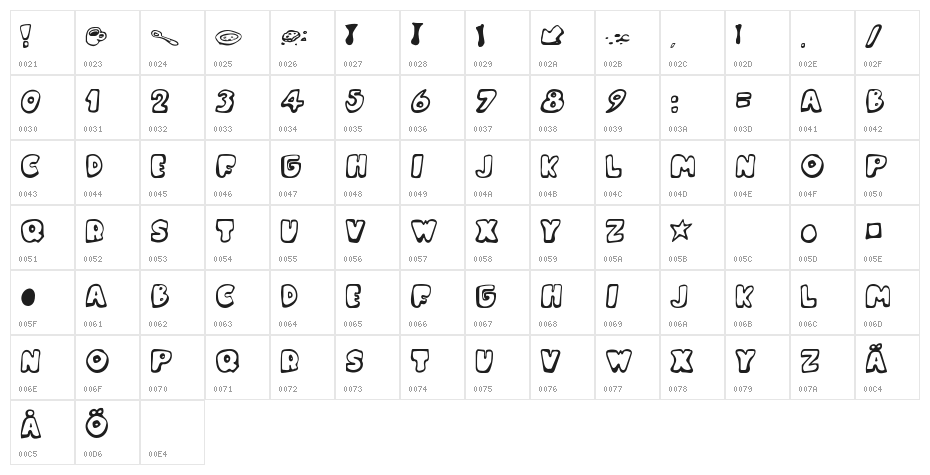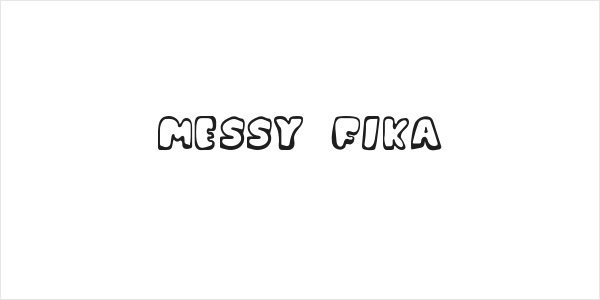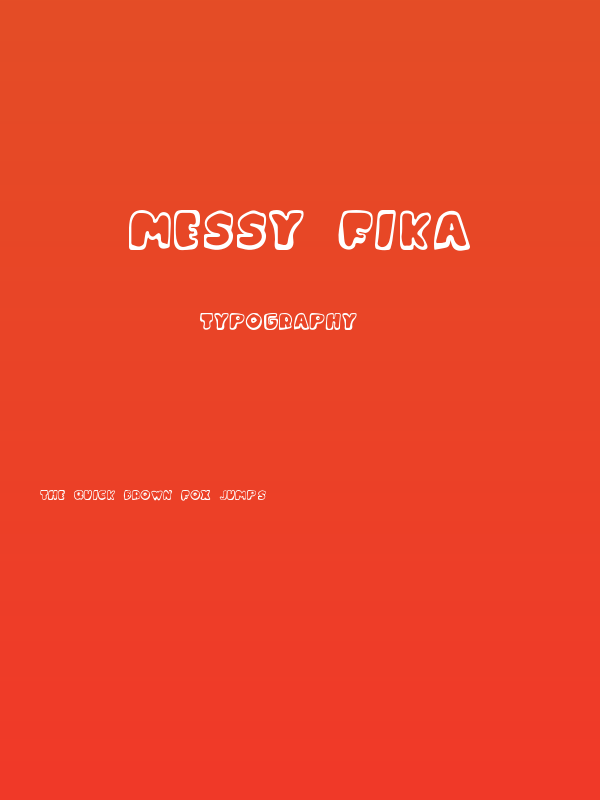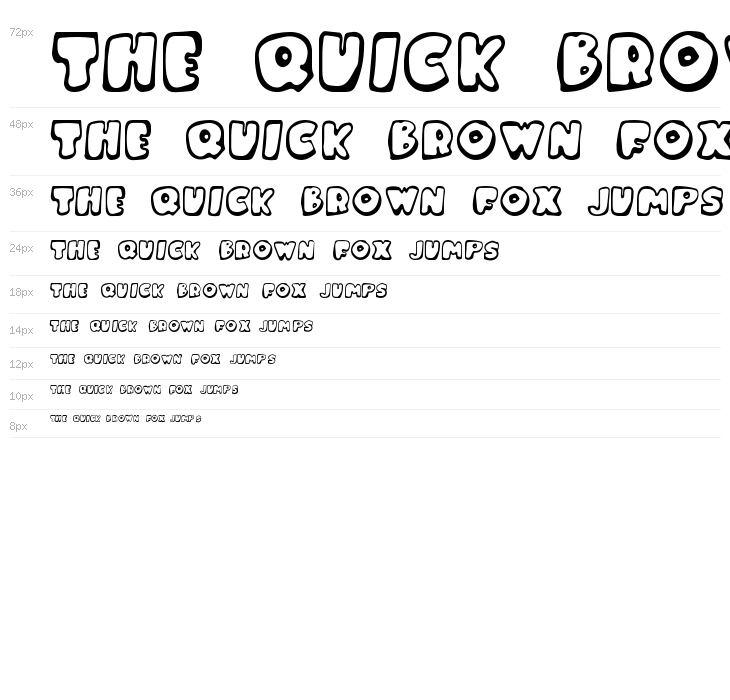
Messy Fika Font
Messy Fika Description
This playful and whimsical font features bold, rounded characters with a hand-drawn appearance. The letters have a cartoonish style, with thick outlines and a slightly uneven form that adds to their charm. The numbers and special characters follow the same playful design, making them perfect for creative projects. The font's unique style is reminiscent of doodles or comic book lettering, providing a fun and informal vibe. Its boldness ensures high readability, while the quirky shapes make it stand out in any design.
| Proposed Projects | Ideal for children's books, comic strips, playful branding, and casual invitations. |